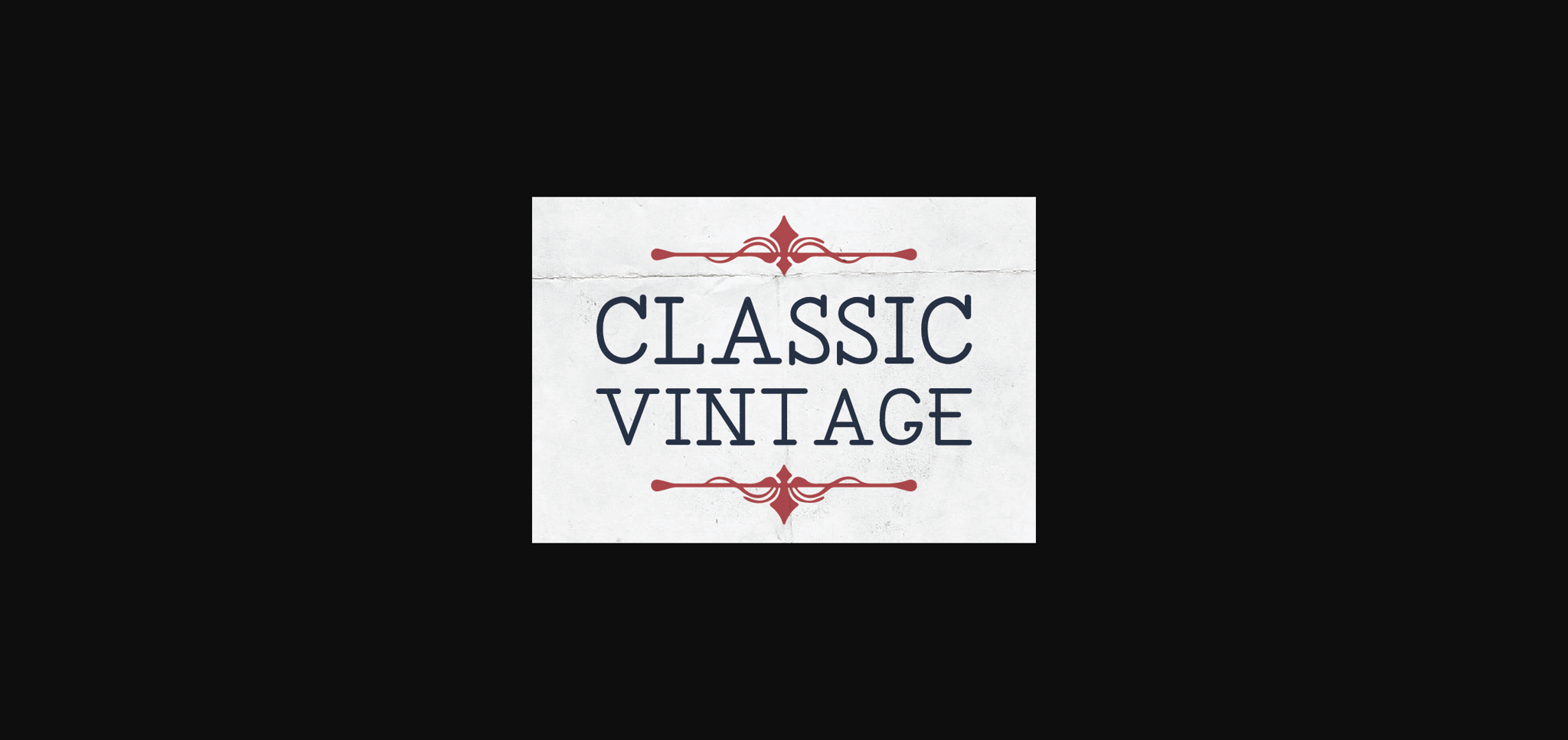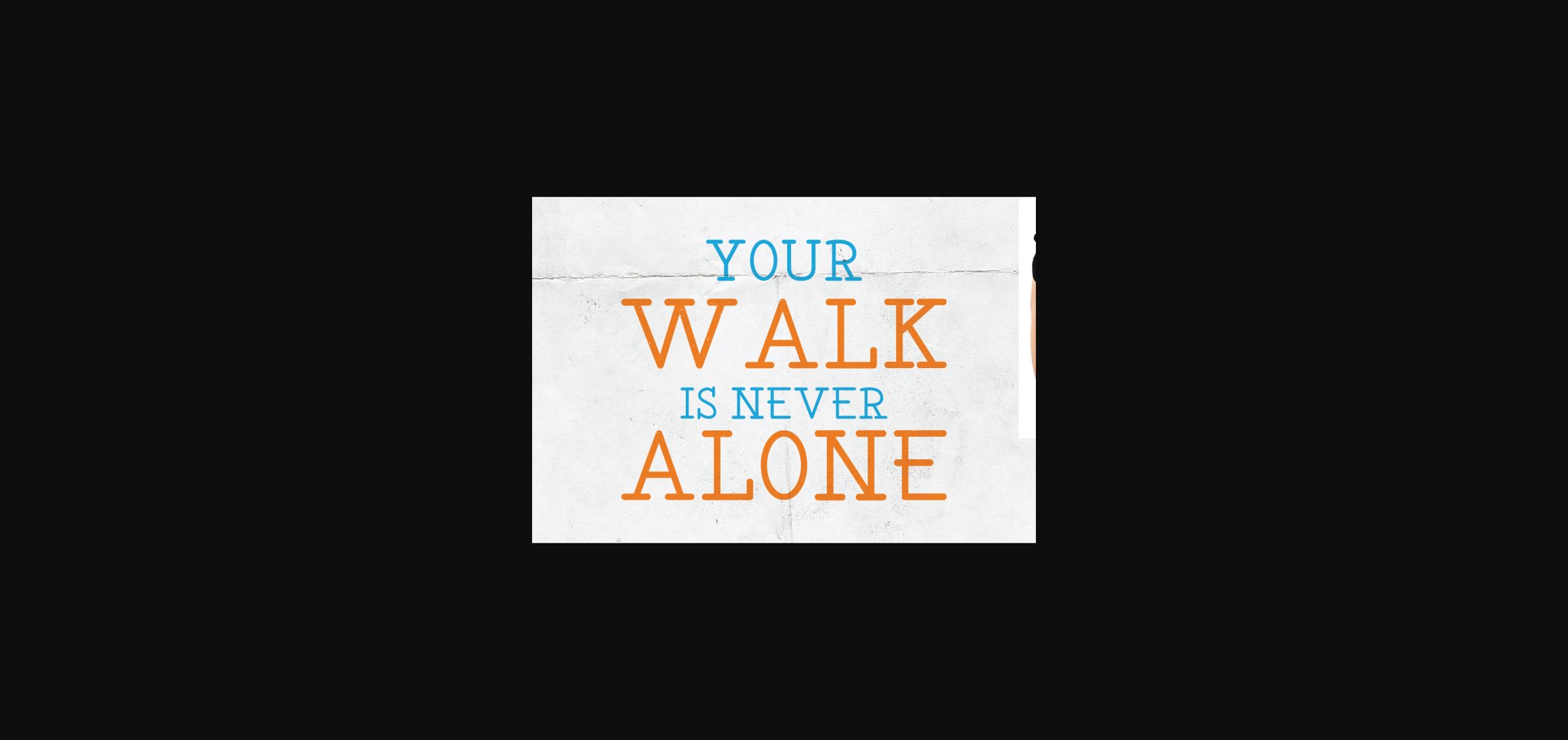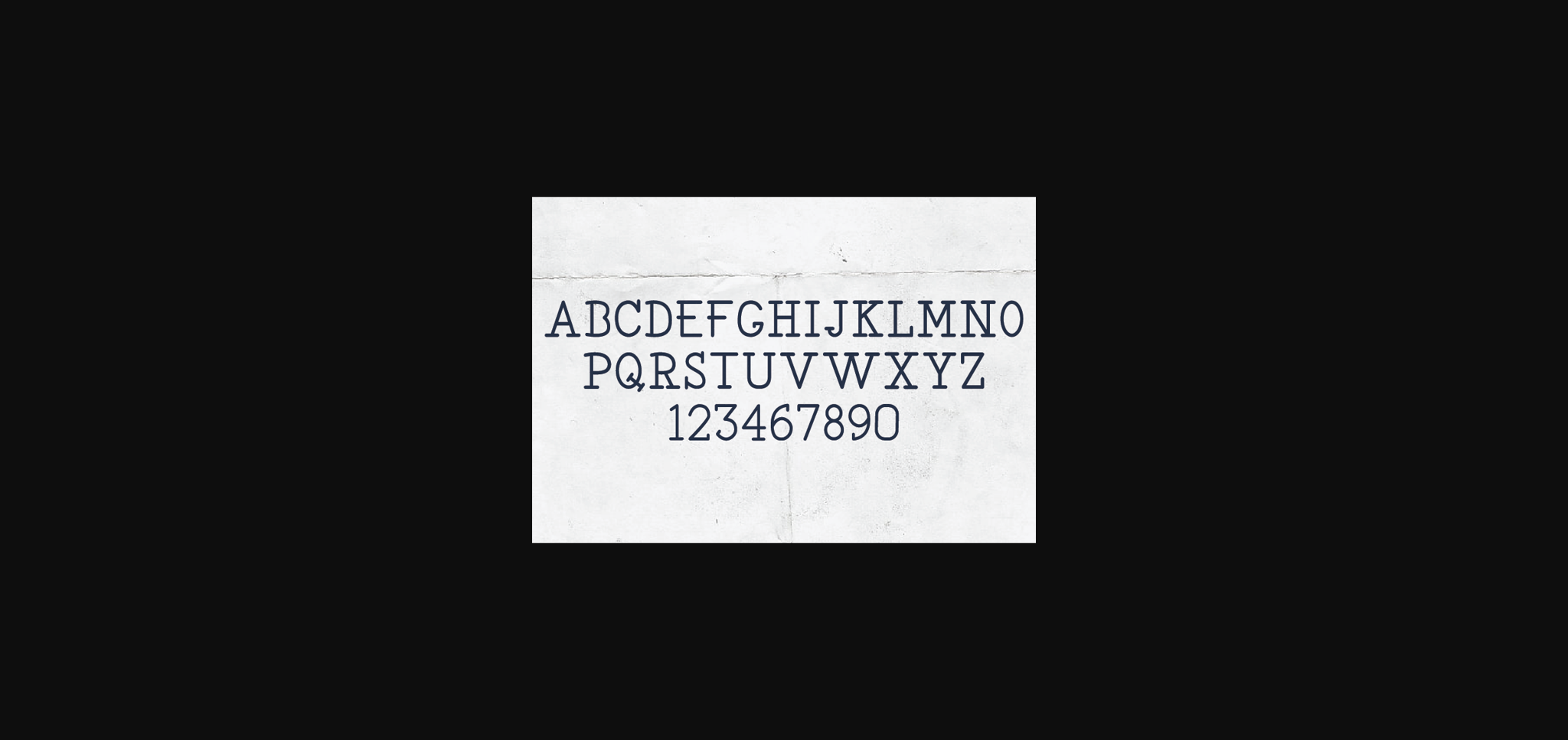
Classic Vintage Font
About Classic Vintage Font
Classic Vintage is a simple Western-style Typewriter sans serif font designed for a clean retro look. With its vintage balanced proportions, this font is perfect for creating a minimalist aesthetic in logos, web design, and branding.